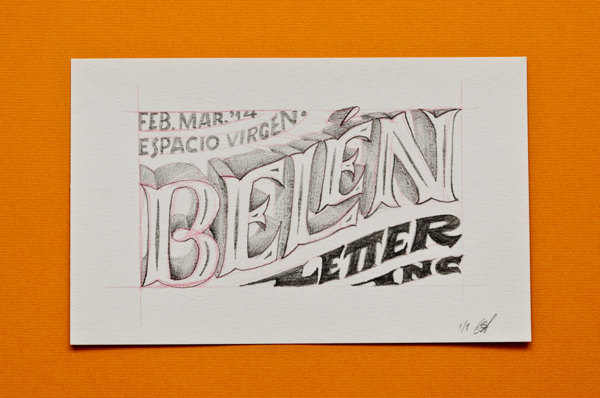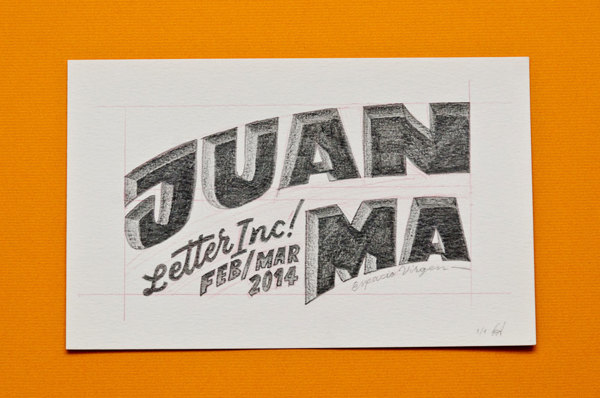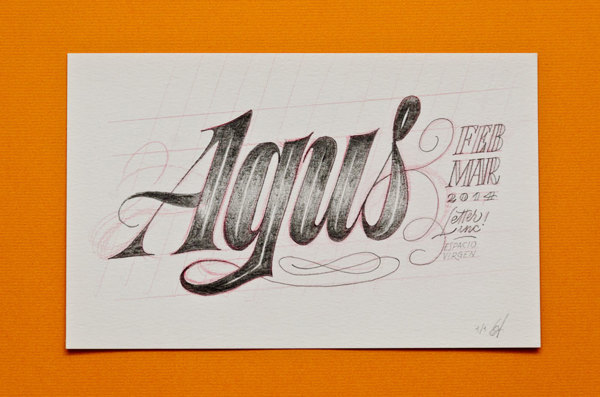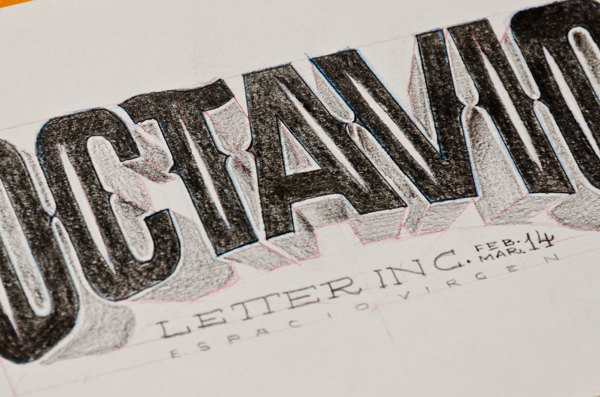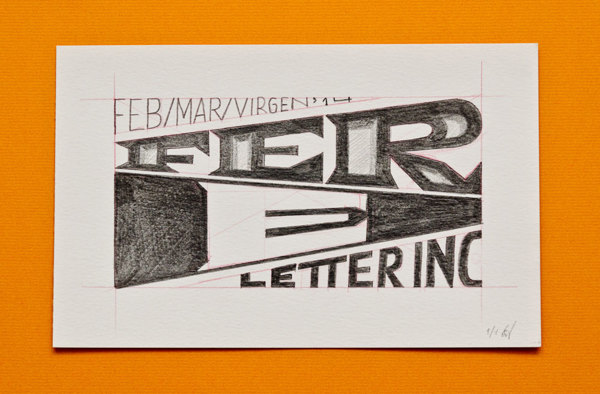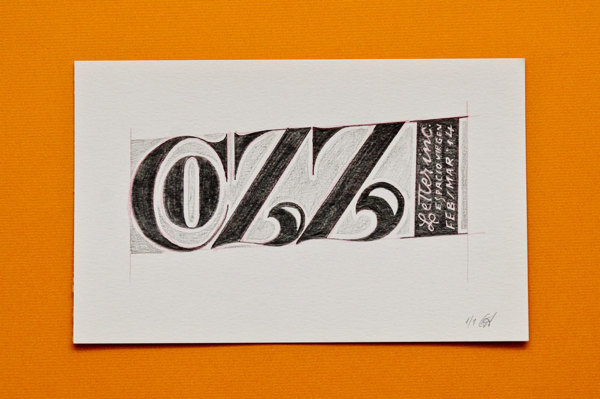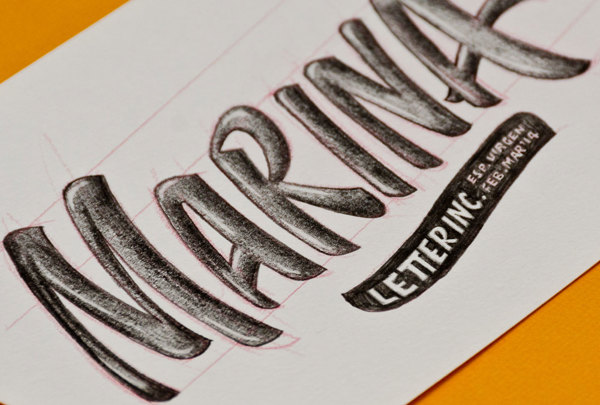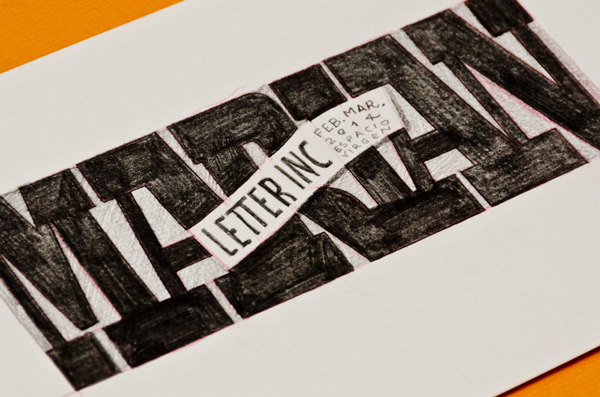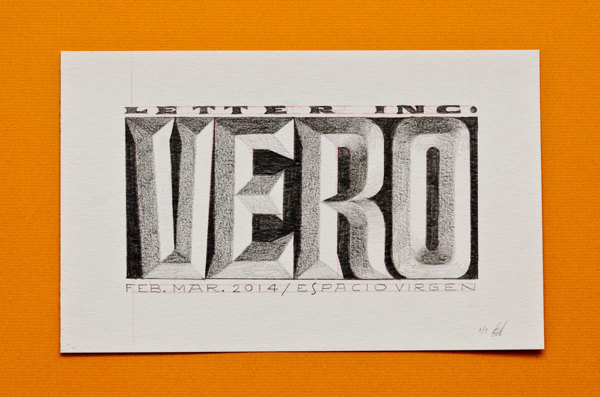
One pencil, one name, a bunch of skills & done.
The great Argentina based typographer/calligrapher Guille Vizzari dictated a once-in-a-lifetime workshop for typography (what else?) at Espacio Virgen and found it a great idea to share with us some gifts to his new students, something like a sneak peek of what is going to follow. Did I mention he's using just a pencil? And a faint grid sometimes for more accuracy of course. Here are the results and hey people, where are the frames, bring on the frames!